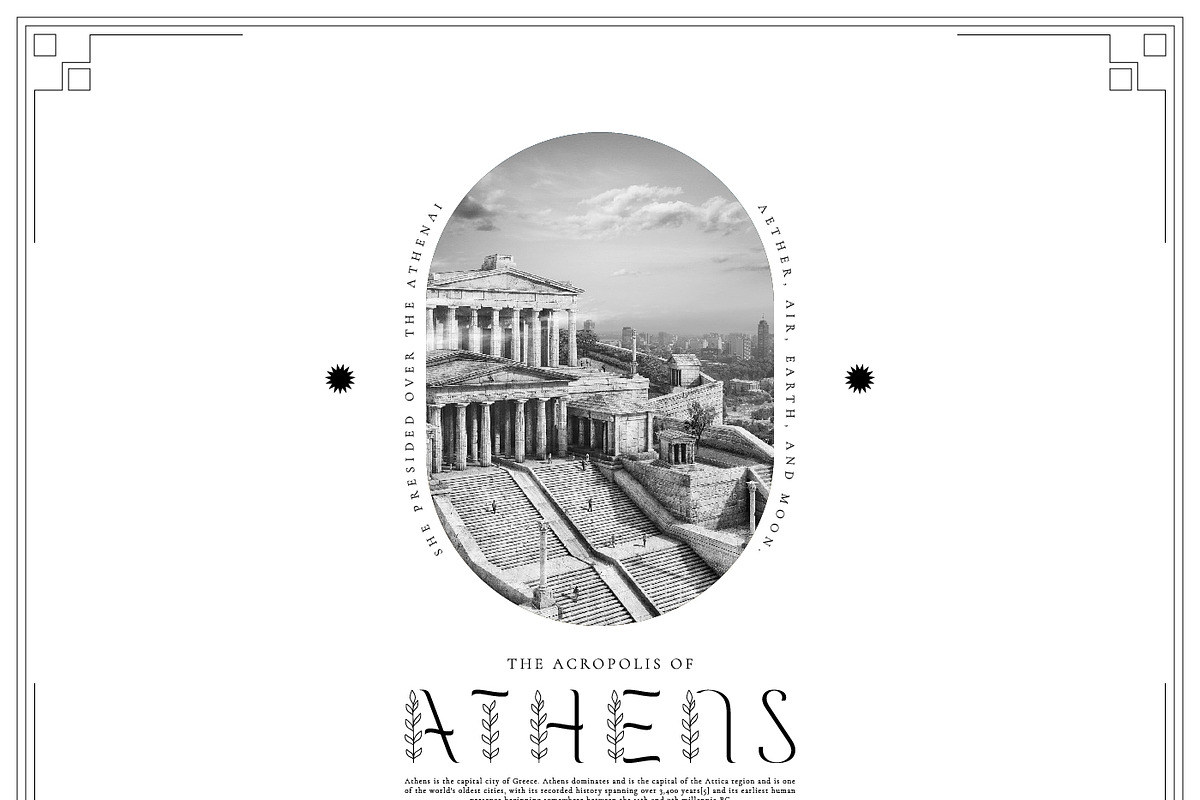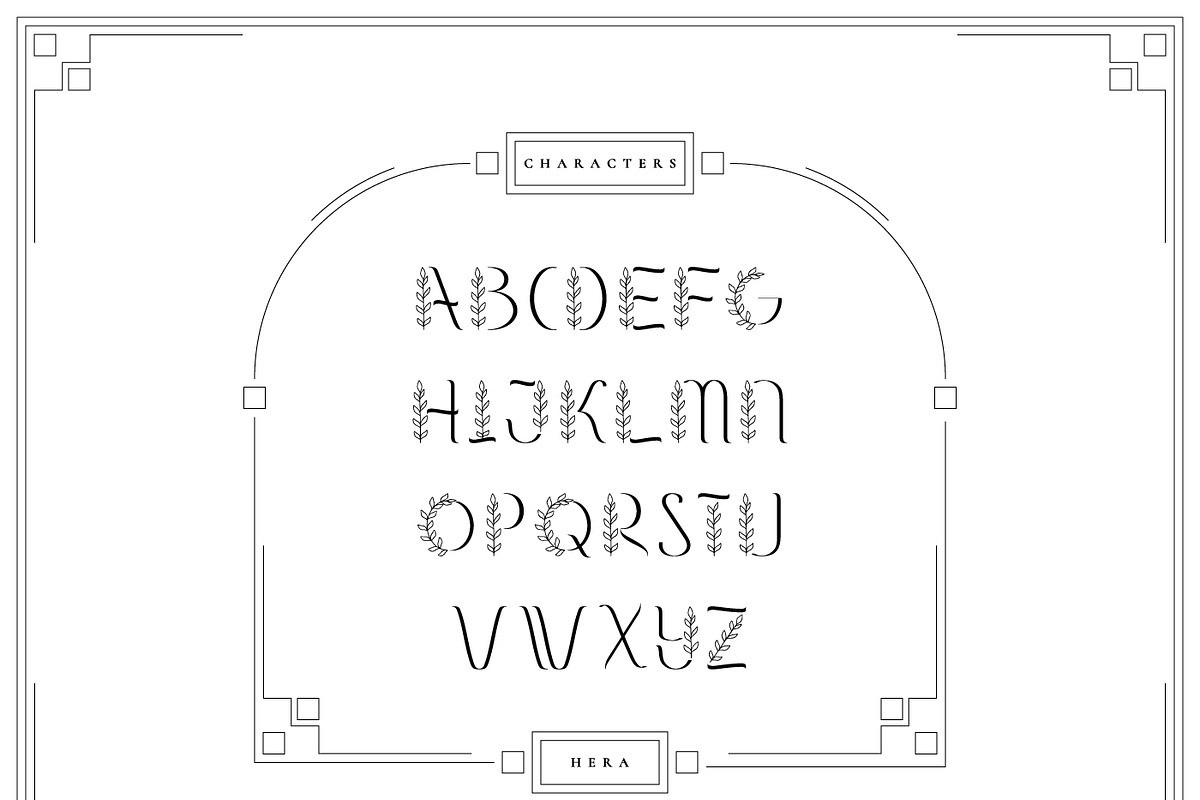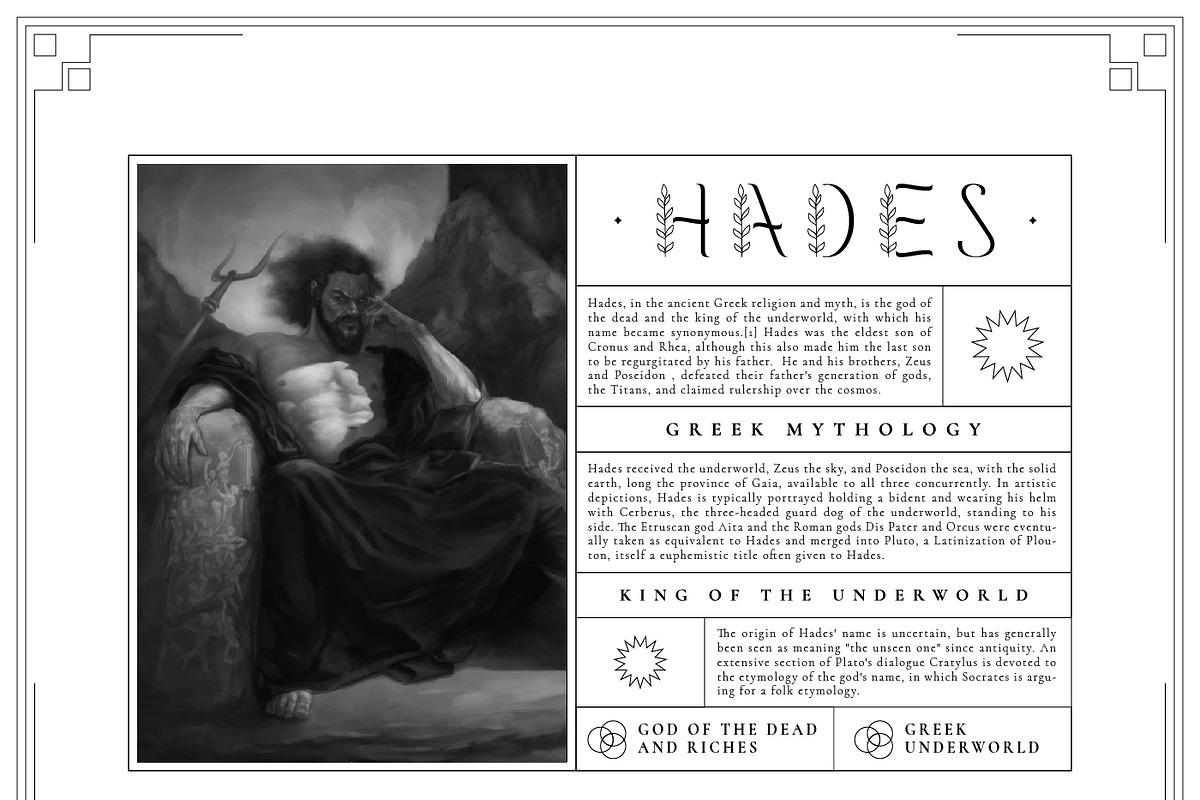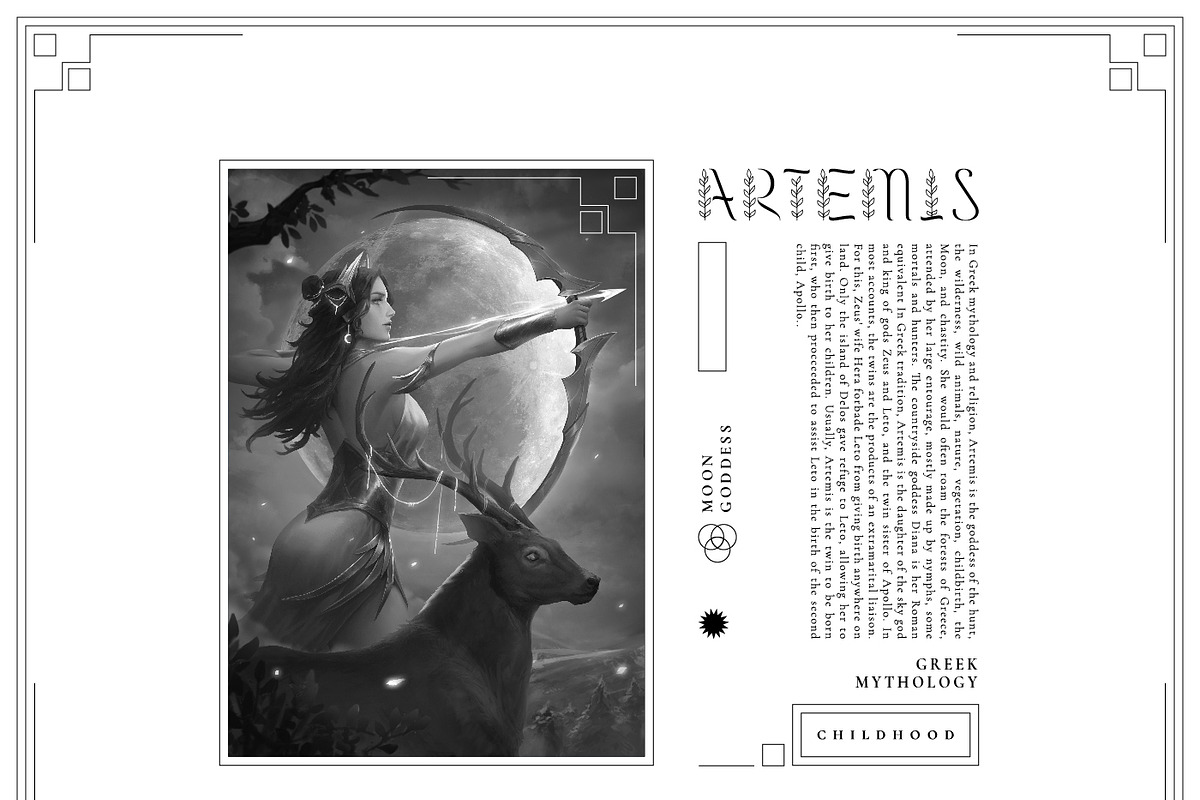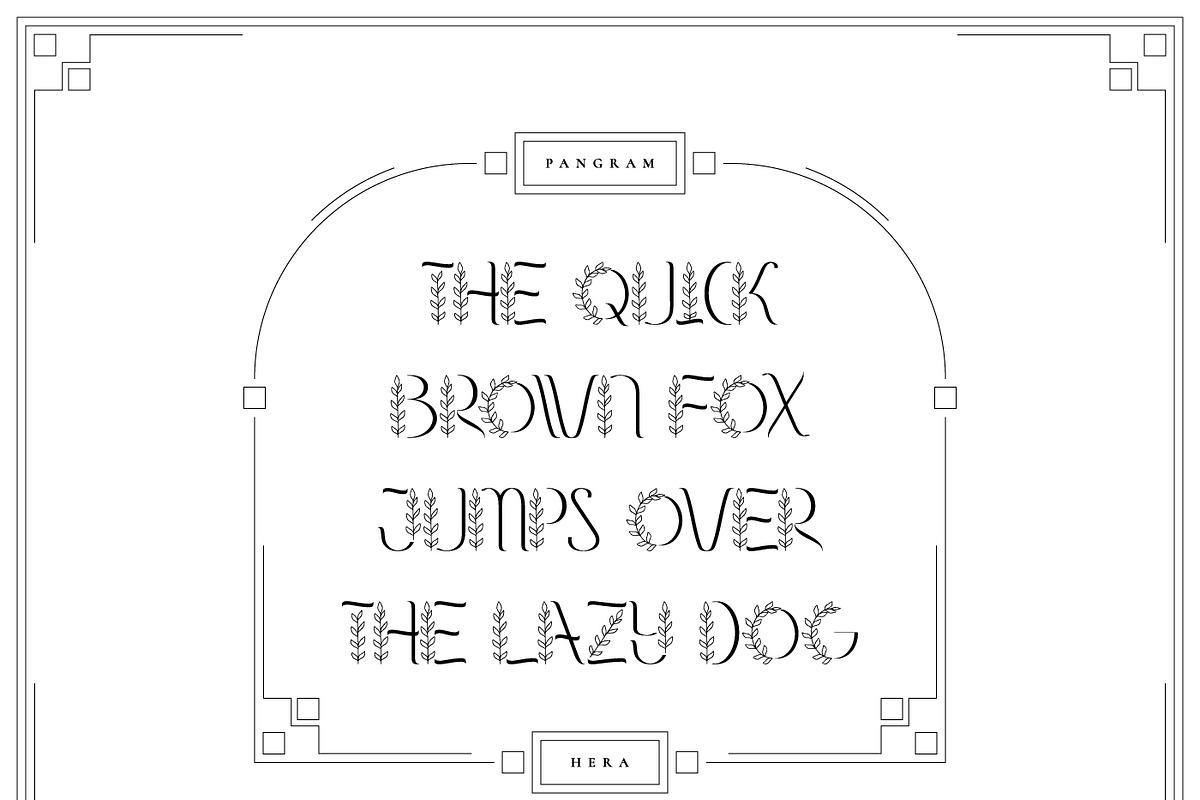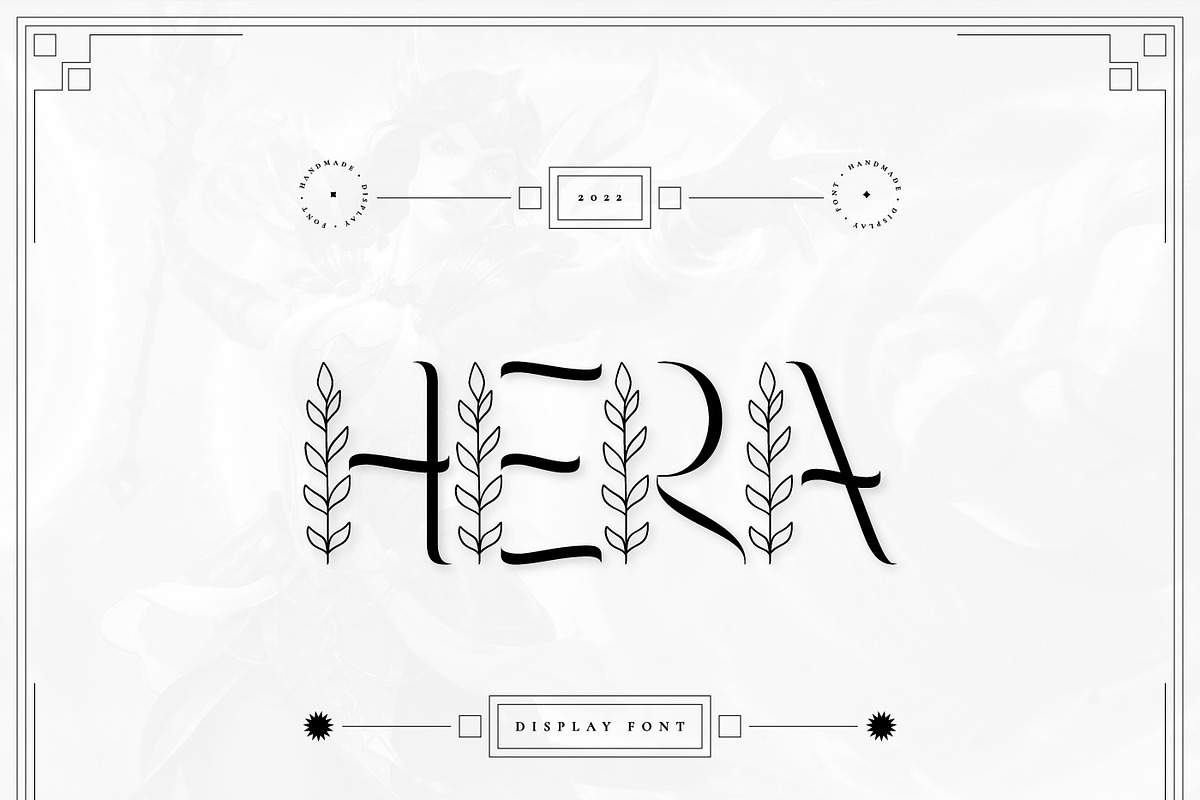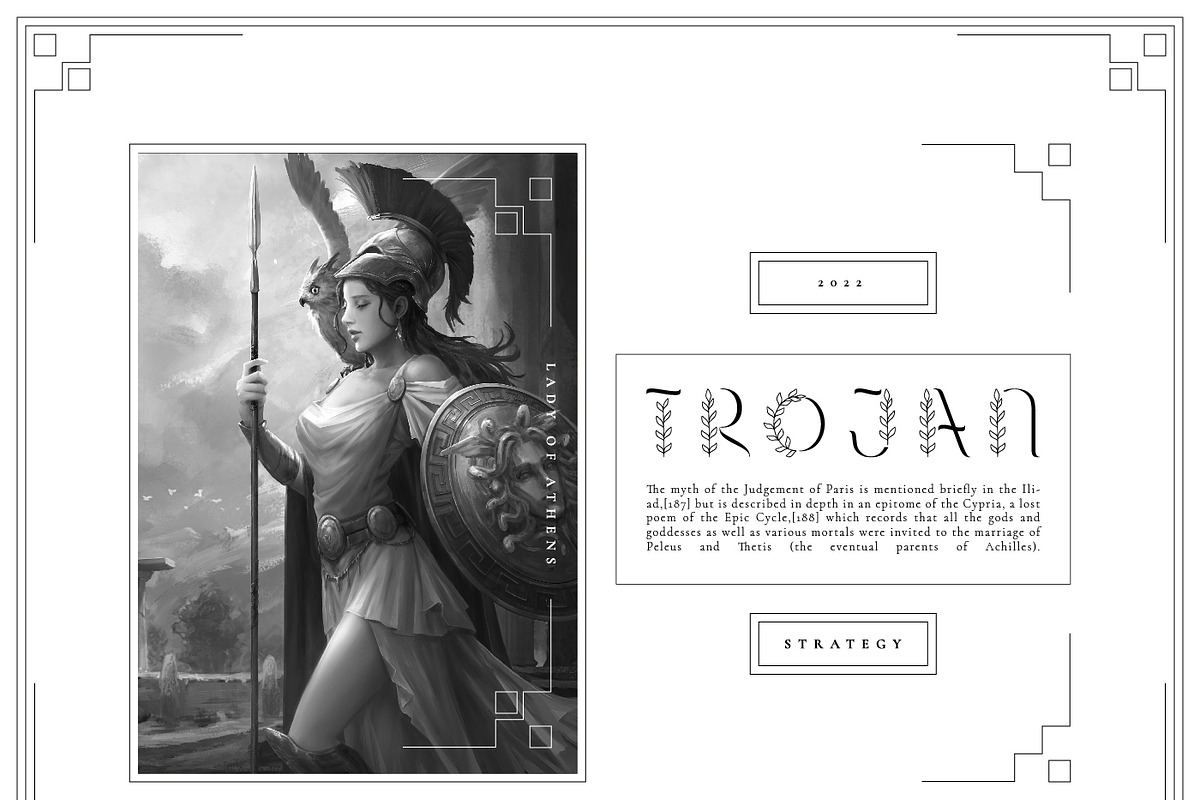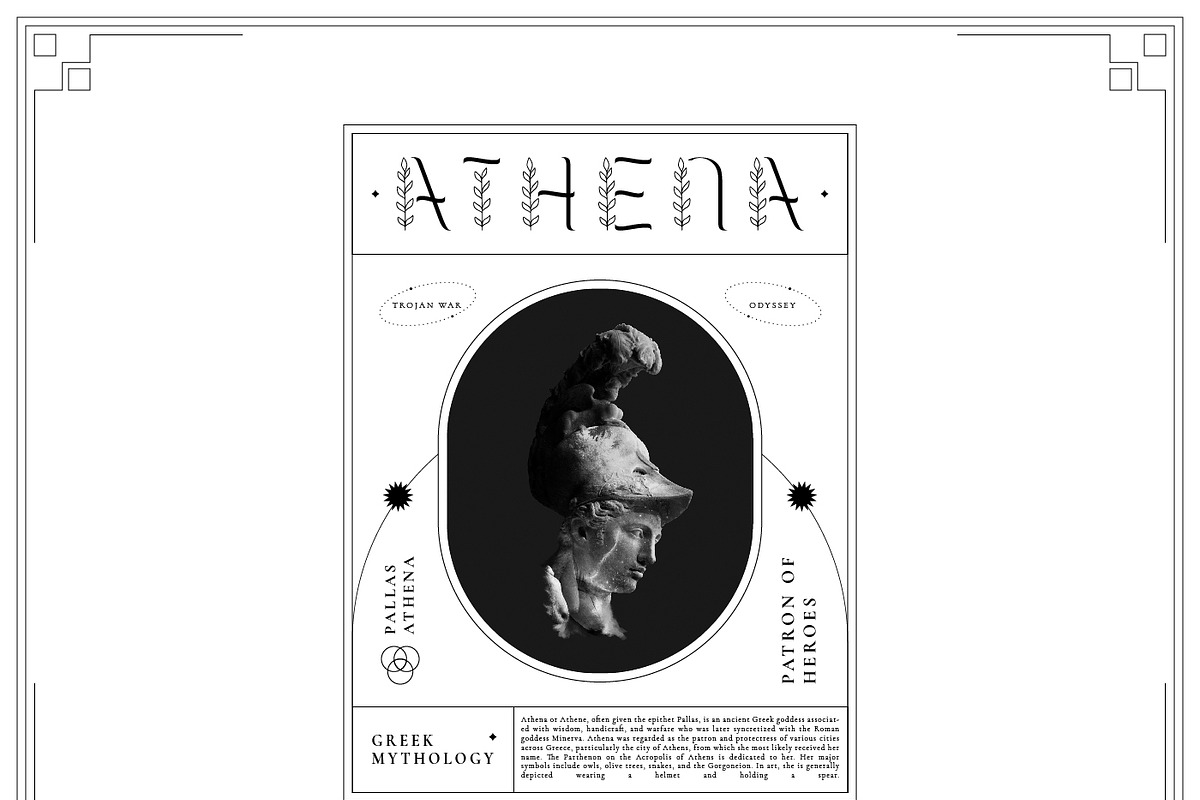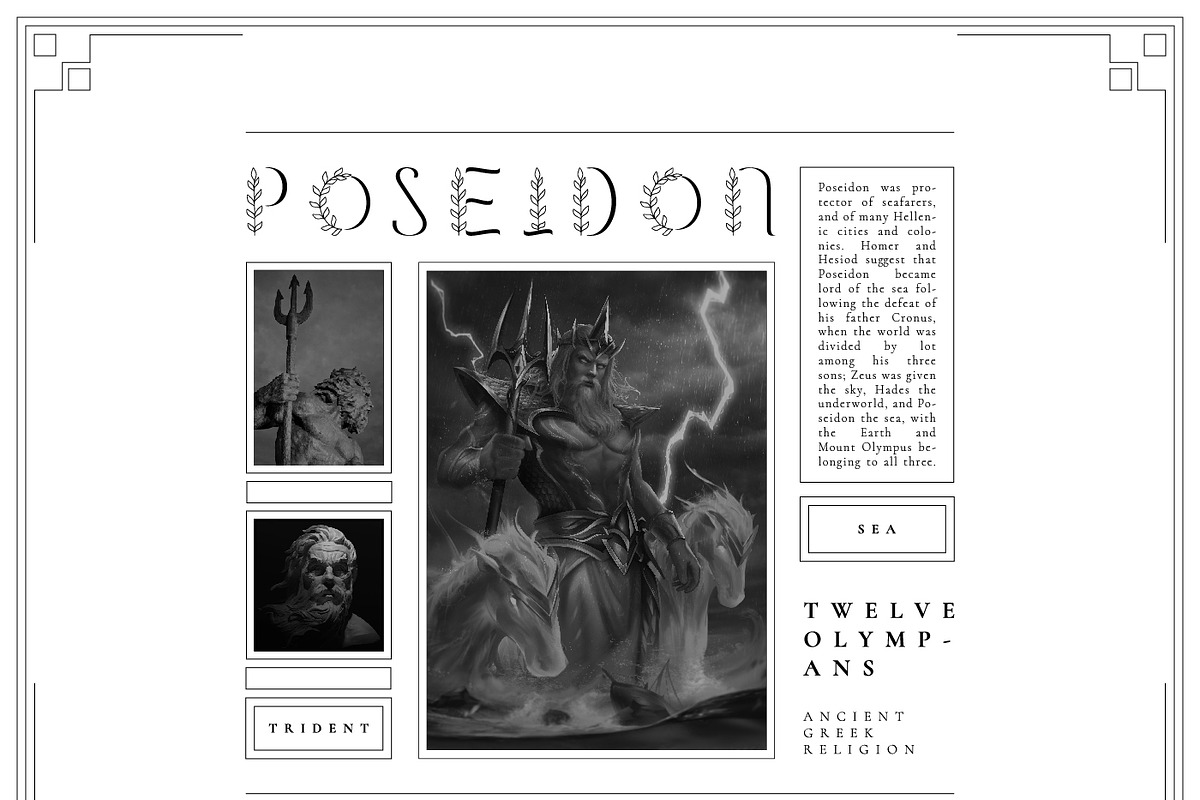
Hera Display Font
Hera is the fresh Display Font Design made in 2022. "Hera" is inspired from the one of God in the Greek Myths, Goddess of Marriage named Hera. "Hera" has extraordinary characteristic, the 'diadem' or Greek Myth Goddess' crown is perfectly added as special creatures inside the font. "Hera" is bringing elegant, intimacy, classic, and gorgeous feels. It is perfectly made for wedding projects, pamphlets, branding projects, logos, and another project needs Greek Myth or elegant vibes.
- OpenType Features (Stylistic Set)